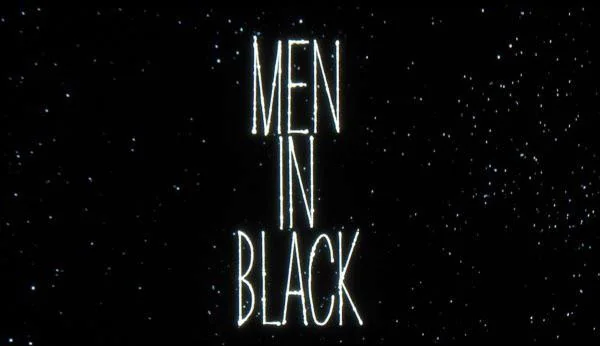
Best Handwriting Fonts from Google Fonts for Students & Educators
Handwriting fonts bring warmth and personality to educational materials while maintaining clarity for learners. The best options balance legibility with a natural handwritten feel, making them suitable for worksheets, posters, presentations, and digital resources.
For education, it’s also worth noting whether a font uses a single-storey “a” (ɑ), which matches early handwriting instruction, or a two-storey “a” (a), which appears in many printed typefaces. Single-storey “a” is often preferred for early learners, as it mirrors how children are taught to write by hand.
1. Patrick Hand
Why it’s great for students & educators: A neat, natural handwriting style that reads well at all sizes. It has a friendly tone while keeping letter shapes clear and consistent. Single-storey “a” makes it ideal for younger learners. Patrick Hand SC (small caps) is the all caps alternative.
Best for: Classroom displays, student projects, feedback notes.
2. Gloria Hallelujah
Why it’s great for students & educators: A playful, casual script that still retains good legibility. Features a single-storey “a” and a natural stroke pattern.
Best for: Creative writing projects, bulletin boards, informal worksheets.
3. Caveat
Why it’s great for students & educators: Smooth, semi-connected strokes create an approachable but tidy look. Single-storey “a” supports early handwriting familiarity.
Best for: Student handouts, quotes, and annotation-style text.
4. Coming Soon
Why it’s great for students & educators: Upright, print-style strokes with a single-storey “a” make it easy to read. Great for resources where clarity is the top priority.
Best for: Early years worksheets, transition-from-print-to-cursive resources, child-friendly posters.
5. Indie Flower
Why it’s great for students & educators: Rounded, bubbly strokes with a single-storey “a” give this font a cheerful tone without sacrificing readability.
Best for: Art projects, student journals, creative classroom labels.
6. Just Another Hand
Why it’s great for students & educators: Tall, narrow handwriting style that mimics neat marker pen writing. Uses a single-storey “a” and works well for headings or annotations.
Best for: Whiteboard-style printables, educational posters, infographics.
7. Crafty Girls
Why it’s great for students & educators: Whimsical and expressive with a single-storey “a.” Despite its playful look, it remains clean and readable.
Best for: Reading corner posters, fun literacy resources, themed worksheets.
8. Handlee
Why it’s great for students & educators: Rounded, friendly letterforms with generous spacing. Single-storey “a” makes it great for younger learners.
Best for: Flashcards, handwriting-friendly printables, reading comprehension sheets.
9. Ranga
Why it’s great for students & educators: A brush-style handwriting font with bold strokes and a single-storey “a.” Works well for impactful headings.
Best for: Lesson titles, inspirational posters, activity headers.
10. Sue Ellen Francisco
Why it’s great for students & educators: Loose and airy handwriting style with single-storey “a” and tall ascenders. Best in larger sizes for clarity.
Best for: Large display text, informal posters, art-integrated learning materials.
11. The Girl Next Door
Why it’s great for students & educators: Light, rounded handwriting style with single-storey “a” that feels friendly and approachable.
Best for: Informal reading materials, creative classroom documents, student-led project headings.
12. Zeyada
Why it’s great for students & educators: Elegant and fluid, Zeyada has a hand-lettered feel while retaining a clear single-storey “a.” Works well for creative or decorative educational materials.
Best for: Title pages, project covers, creative literacy worksheets.
13. Homemade Apple
Why it’s great for students & educators: This script-style font has the charm of quick, tidy handwriting, making it feel personal while still easy to read.
Best for: Informal classroom labels, student work feedback, personal learning journals.
14. Shadows Into Light
Why it’s great for students & educators: Neat and casual, Shadows Into Light has a friendly handwritten style with a clear single-storey “a.” Its balanced spacing makes it easy to read both on screen and in print.
Best for: Informal worksheets, student journals, friendly classroom posters.
15. Amatic SC
Why it’s great for students & educators: All Caps, Tall and narrow with a quirky personality, Amatic SC works well for headings and display text. It adds a creative edge to resources and most of all, it reminds me of the type face used in Men in Black.
Best for: Project titles, bulletin board headings, attention-grabbing labels.
16. Reenie Beanie
Why it’s great for students & educators: Loose and sketchy, Reenie Beanie feels like quick marker pen writing while still featuring a single-storey “a.” Best used at larger sizes for legibility.
Best for: Creative posters, art-integrated projects, informal feedback notes.
17. Nothing You Could Do
Why it’s great for students & educators: A smooth, connected cursive with a clear single-storey “a.” It strikes a balance between personal, handwritten warmth and good legibility.
Best for: Certificates, personal project covers, classroom display titles.
18. Neucha
Why it’s great for students & educators: Playful and rounded with a two-storey “a,” Neucha combines a casual handwritten feel with consistent, easy-to-read letterforms.
Best for: Reading corner signs, creative writing worksheets, language arts materials.
Handwriting fonts can transform worksheets, presentations, and displays into warm, engaging learning tools. For early learners, choosing a font with a single-storey “a” is important, as it matches how they are taught to write by hand. The fonts above combine clarity with character, making them ideal for both print and digital educational materials.
Experiment with a few to see which styles suit your students’ needs and the tone of your resources—whether it’s the playfulness of Crafty Girls or the clean simplicity of Coming Soon.